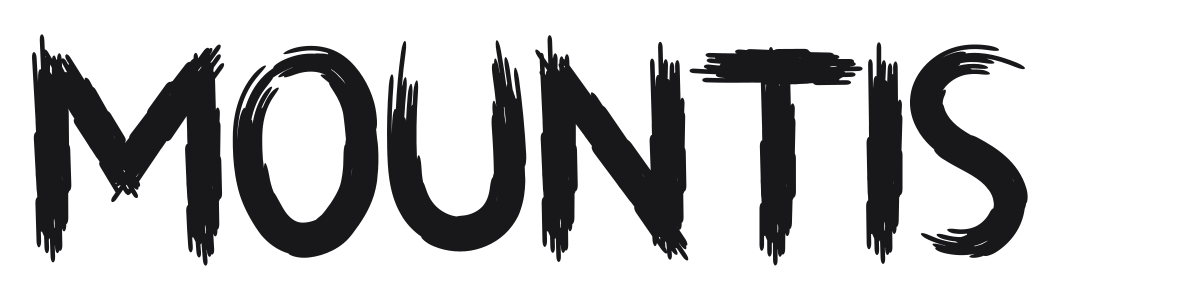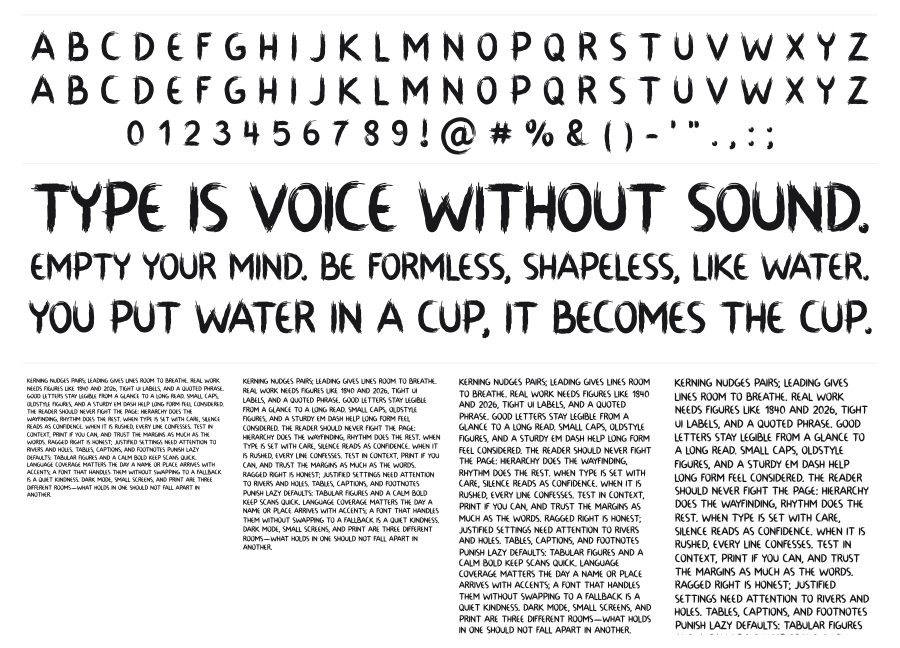
Mountis
Mountis is a bold distressed display font with heavily scratched, brush-scraped strokes that give every character a raw, hand-painted energy. The thick letterforms break apart into ragged fibrous edges, creating intense texture without losing legibility at large sizes. It fits naturally in contexts where grit and attitude matter: band posters, gaming titles, horror branding, and streetwear.